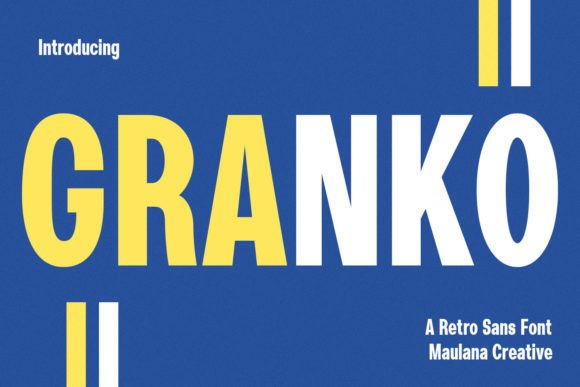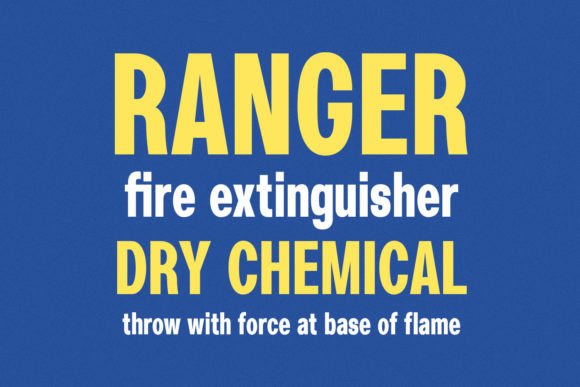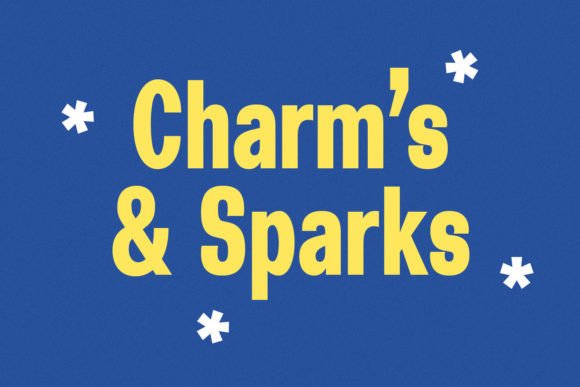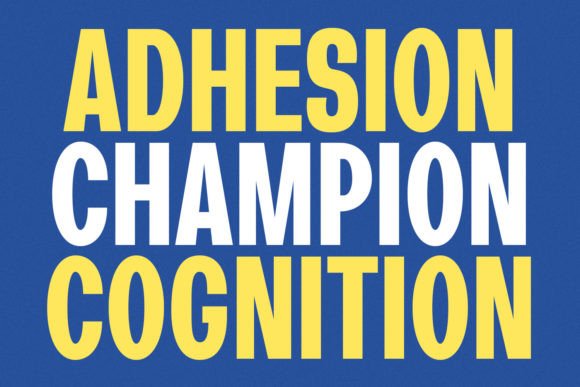
Granko Font: Bold Retro Sans Serif for Headlines & Logo Design
About the Granko Font
Add a touch of class to your work with the Granko Font, a truly exceptional typeface. Granko is a retro-inspired, condensed sans-serif font that adds a touch of nostalgia to any design. Its condensed structure and bold lines make it perfect for headlines, titles, and logos. Whether you’re designing for a vintage-themed project or just want to add a bit of old-school charm, RetroCondense is the font for you.
Granko’s bold, condensed forms excel in headlines, short text blocks, and logos, lending a strong, retro-modern feel to branding projects and posters. Its assertive personality makes it ideal for conveying a sense of confidence and vintage appeal. Avoid using it for large bodies of text or UI elements; its condensed nature compromises readability in extended use.
Pairing Granko effectively requires considering its strong personality. A classic serif like Garamond or a clean sans-serif like Helvetica Neue provides a sophisticated contrast, balancing Granko’s boldness with a touch of elegance or neutrality. For a more playful feel, consider pairing it with a rounded sans-serif.
Brands aiming for a retro-inspired yet contemporary image, such as vintage clothing lines, craft breweries, or music festivals, will find Granko particularly suitable. Its versatility allows it to work across various media, from print to digital applications, so long as text length remains concise.